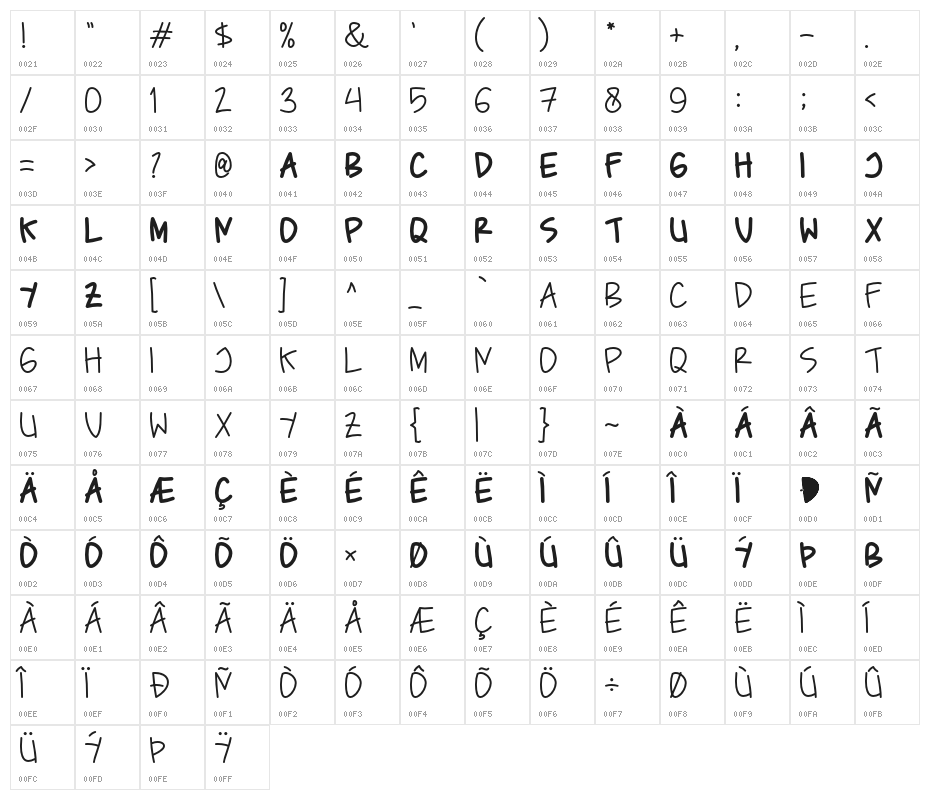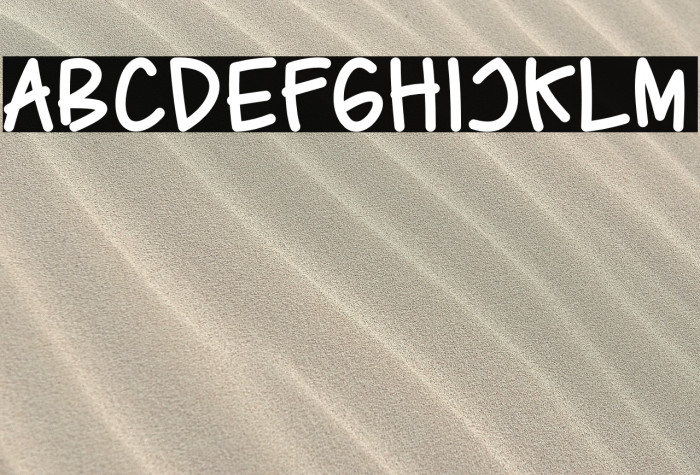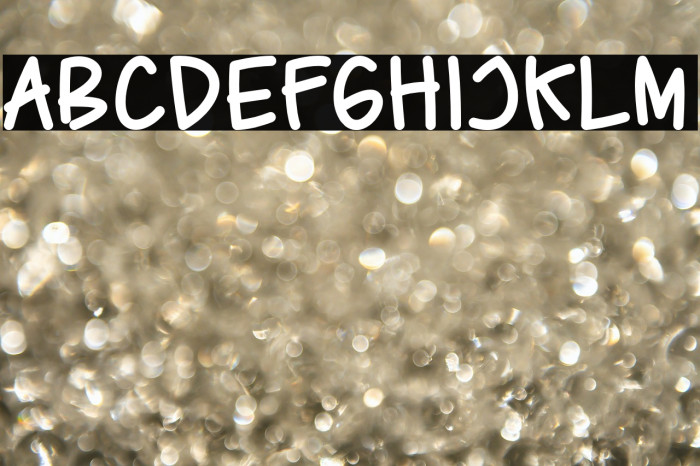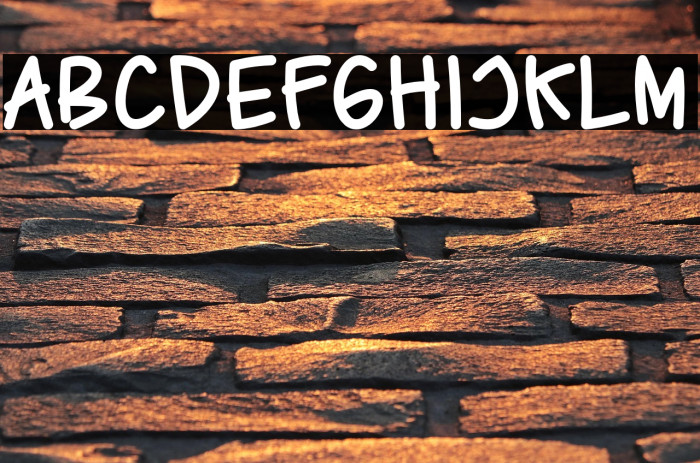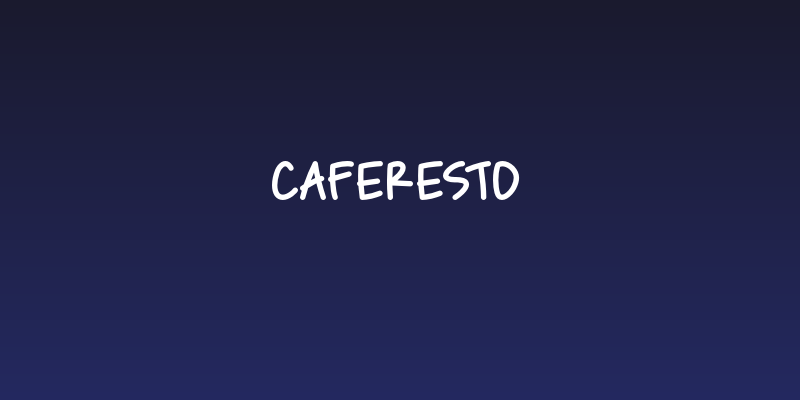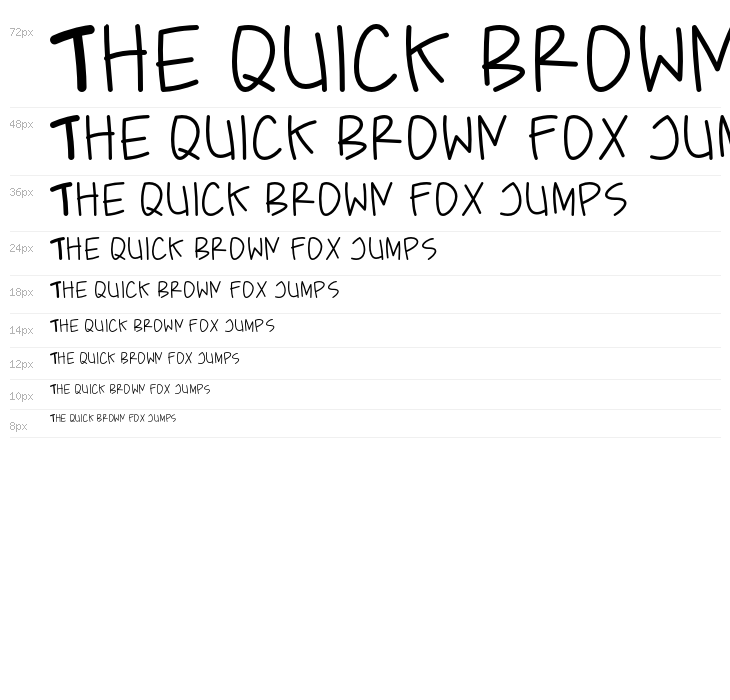
Caferesto Font
Caferesto Description
This playful and casual font features a handwritten style with a friendly and approachable appearance. The characters are slightly irregular, adding a personal touch and a sense of informality. The uppercase and lowercase letters maintain a consistent style, with rounded edges and a smooth flow. The numbers and special characters complement the overall design, making it versatile for various uses. Its informal nature makes it ideal for projects that require a personal or creative touch.
Overall StyleCasual, Playful
Use CaseHeadlines, Informal text, Creative projects
Proposed ProjectsIdeal for greeting cards, children's books, casual branding, and social media graphics.